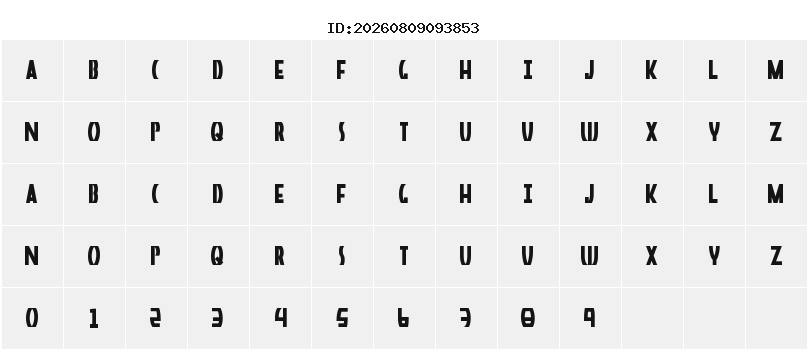
Perceptual Preview
• Font Name: Perceptual
• Designer: Max Infeld
• Manufacturer: xerographer.com
• Description: Created by Xerographer Studios in Chico, California.
About Perceptual.ttf
Perceptual.ttf is a modern, elegant sans-serif font designed for ultimate readability and visual harmony. Perfect for branding, headlines, web design, and print materials.